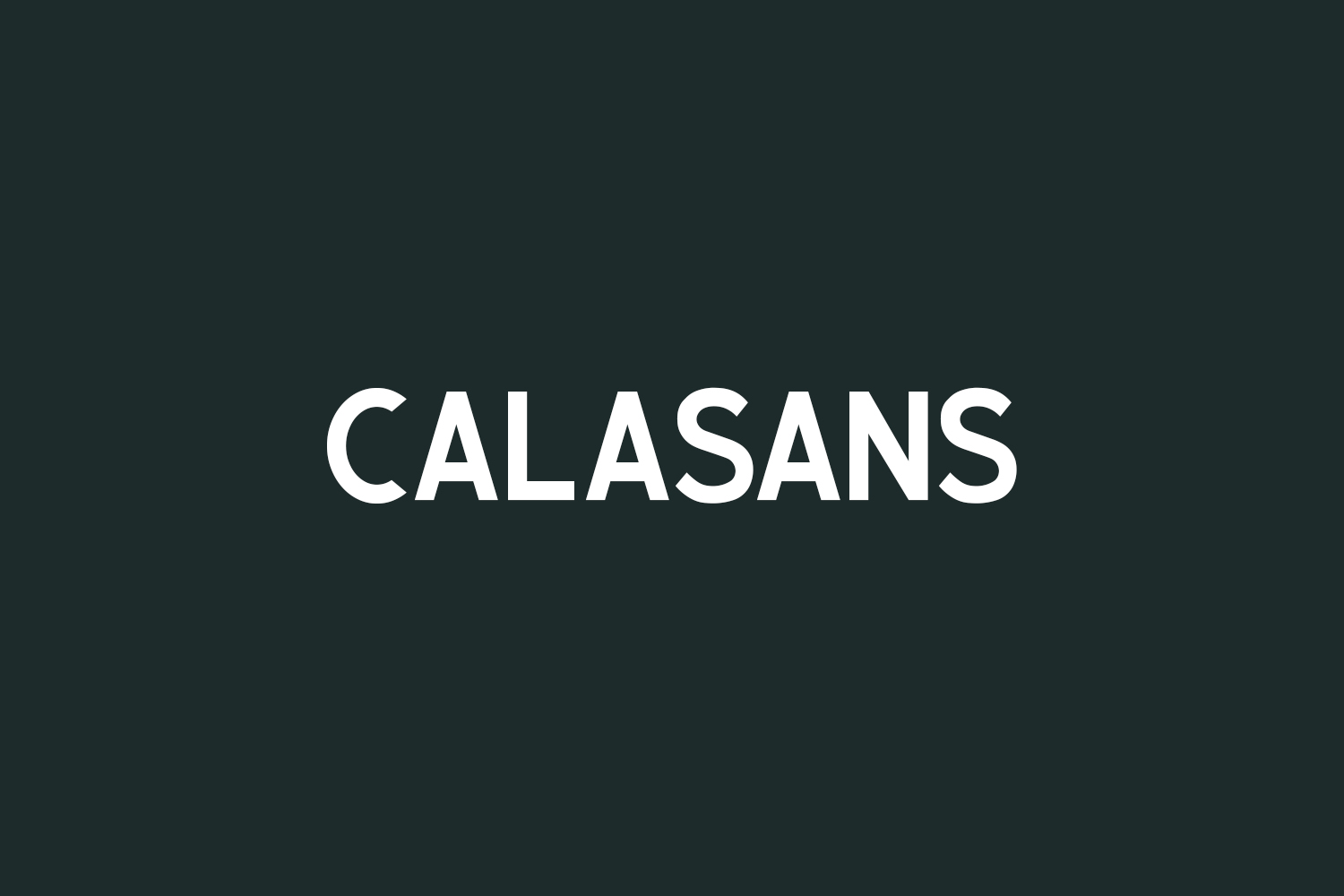
Calasans Free Font is a sans serif font with 7 layered styles. It gives you the opportunity to create a 3D look without using any add-ons! It’s suitable for vintage posters, 3d types, or any other retro design. Calasans Free Font was designed by Letterhend Studio and is free for personal use only. Please purchase the full version for commercial use.
Designed by Letterhend Studio